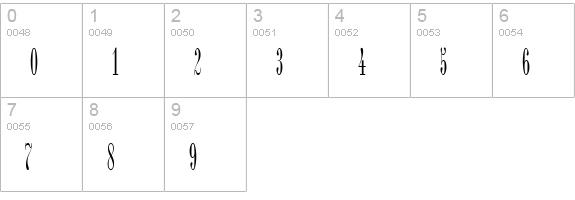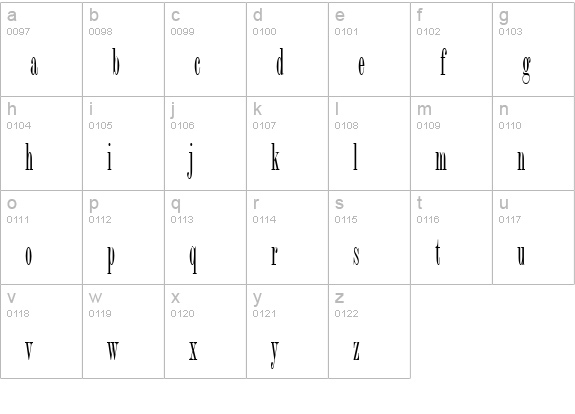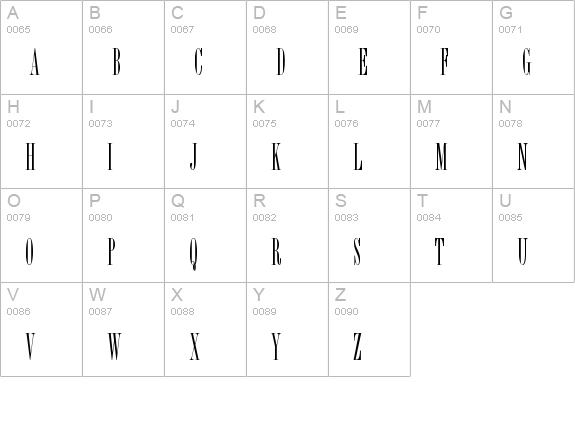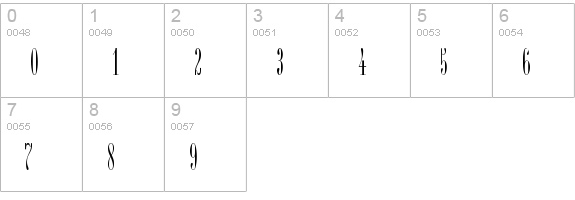
Bordeaux Roman Plain font is a classic and elegant typeface that exudes sophistication and timeless charm. With its clean lines and balanced letterforms, this font is perfect for adding a touch of refinement to any design project. The versatility of Bordeaux Roman Plain makes it suitable for a wide range of applications, from branding to editorial design. What's even better is that Bordeaux Roman Plain font is available for free download at FontsMarket.com. This means you can easily access this high-quality font and use it in your projects without any cost. So why wait? Enhance your designs with the beauty and grace of Bordeaux Roman Plain font today!